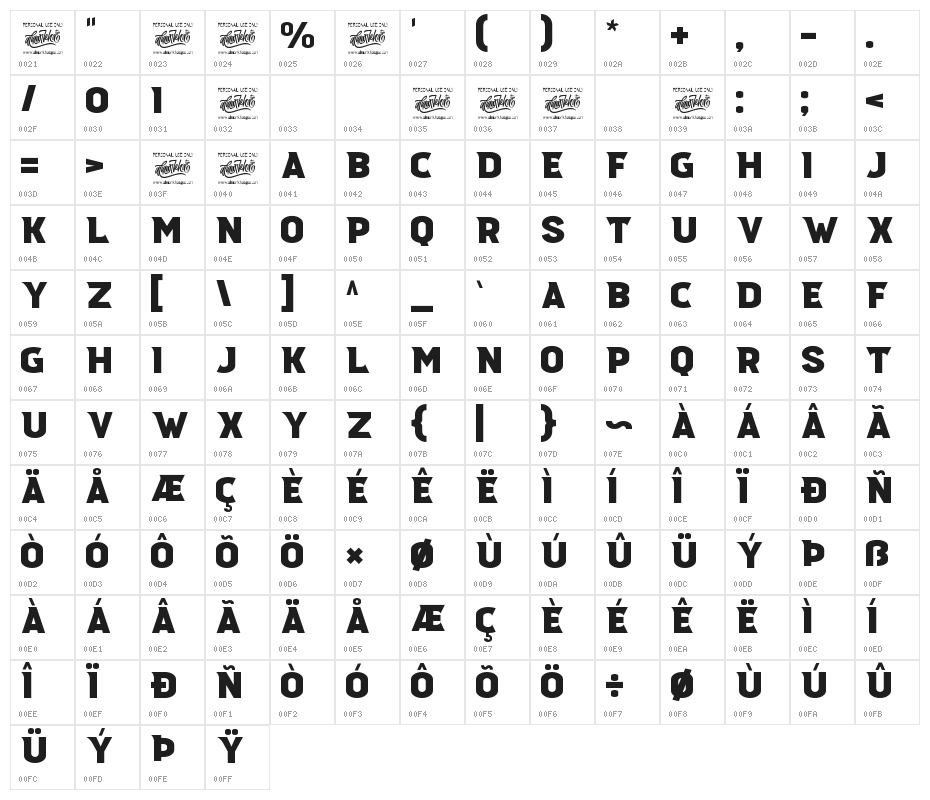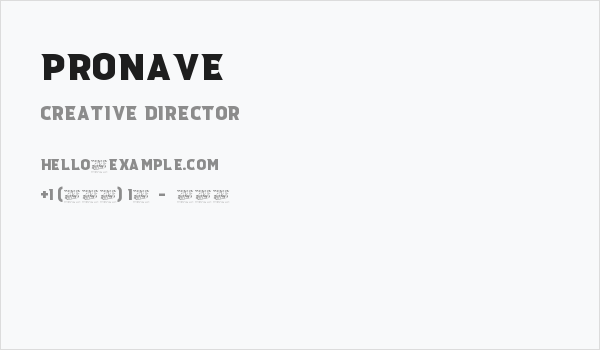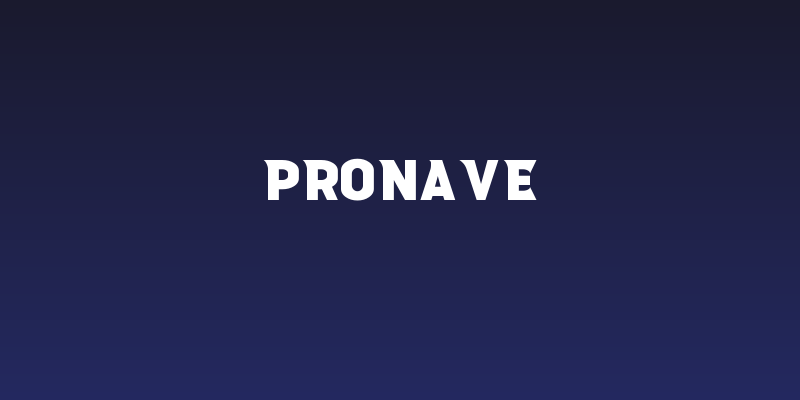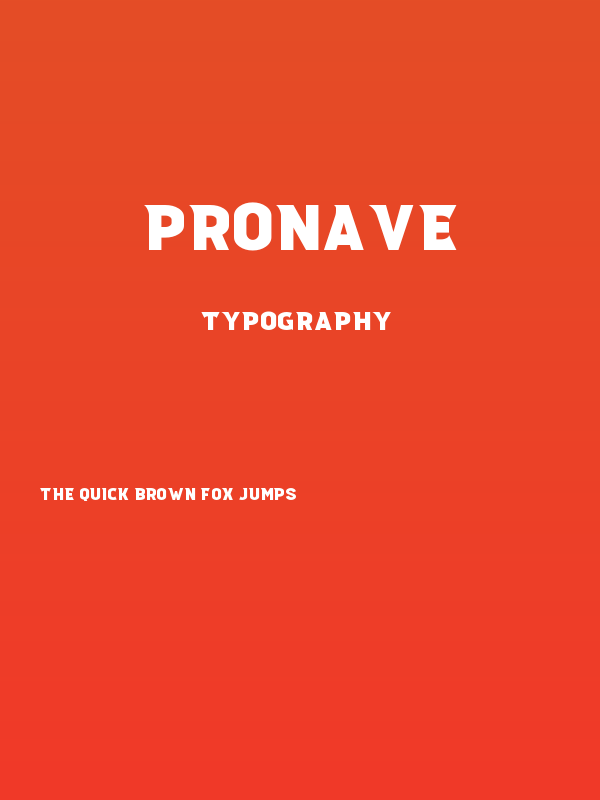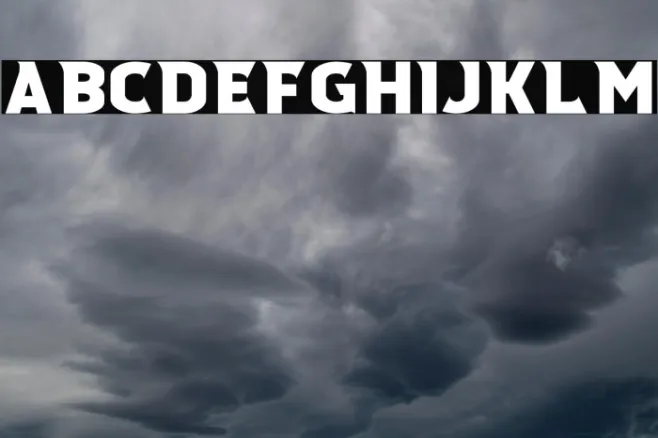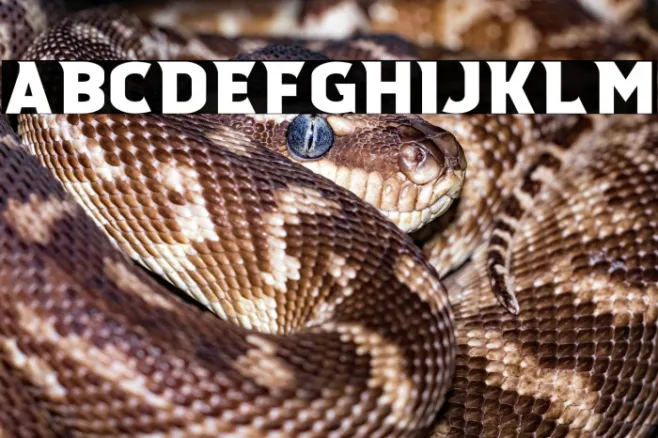
Pronave Font
Pronave Description
This font features bold, angular characters with a strong presence, making it ideal for impactful designs. The uppercase letters are particularly striking, with sharp edges and a slightly condensed form that adds to their commanding appearance. The lowercase letters maintain the same boldness, ensuring consistency throughout the typeface. Numbers and special characters are equally robust, offering a cohesive look across all text elements. The font's design is modern and assertive, suitable for projects that require a strong visual statement.
| Proposed Projects | Ideal for branding, headlines, posters, and any design requiring a bold statement. |